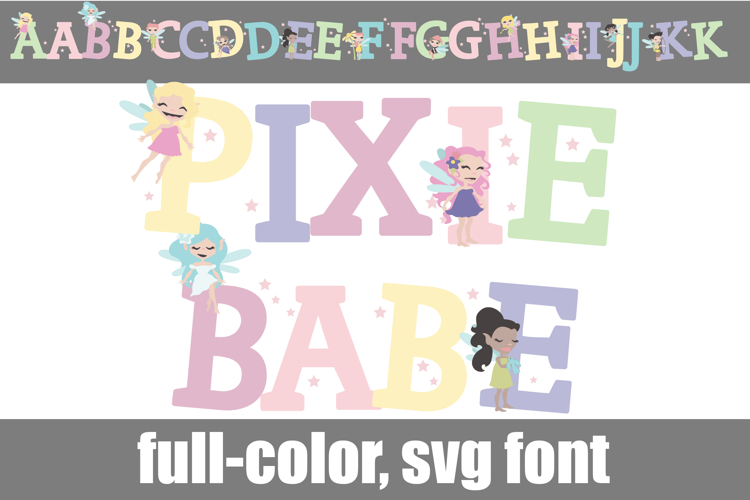
Pixie Babes Color Font
This full-color, pastel-colored font features adorable pixies throughout. There is an alt case of each letter with a different color combination.